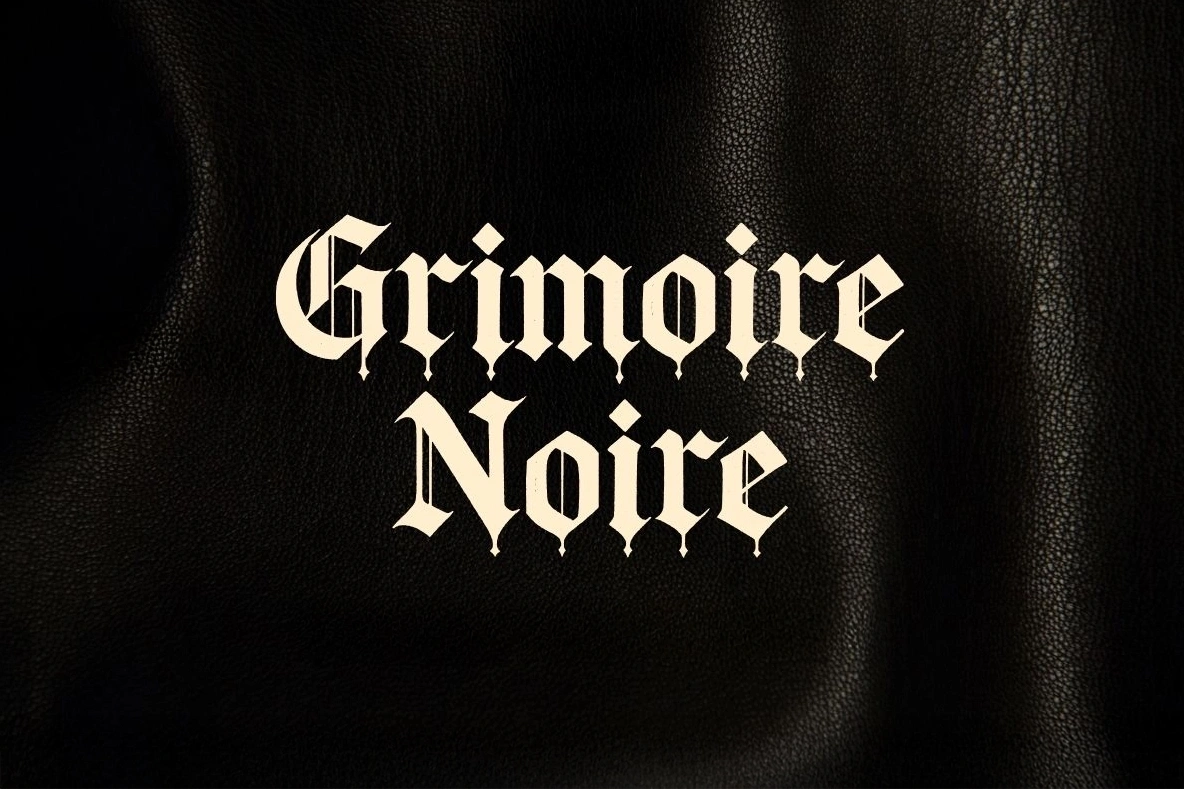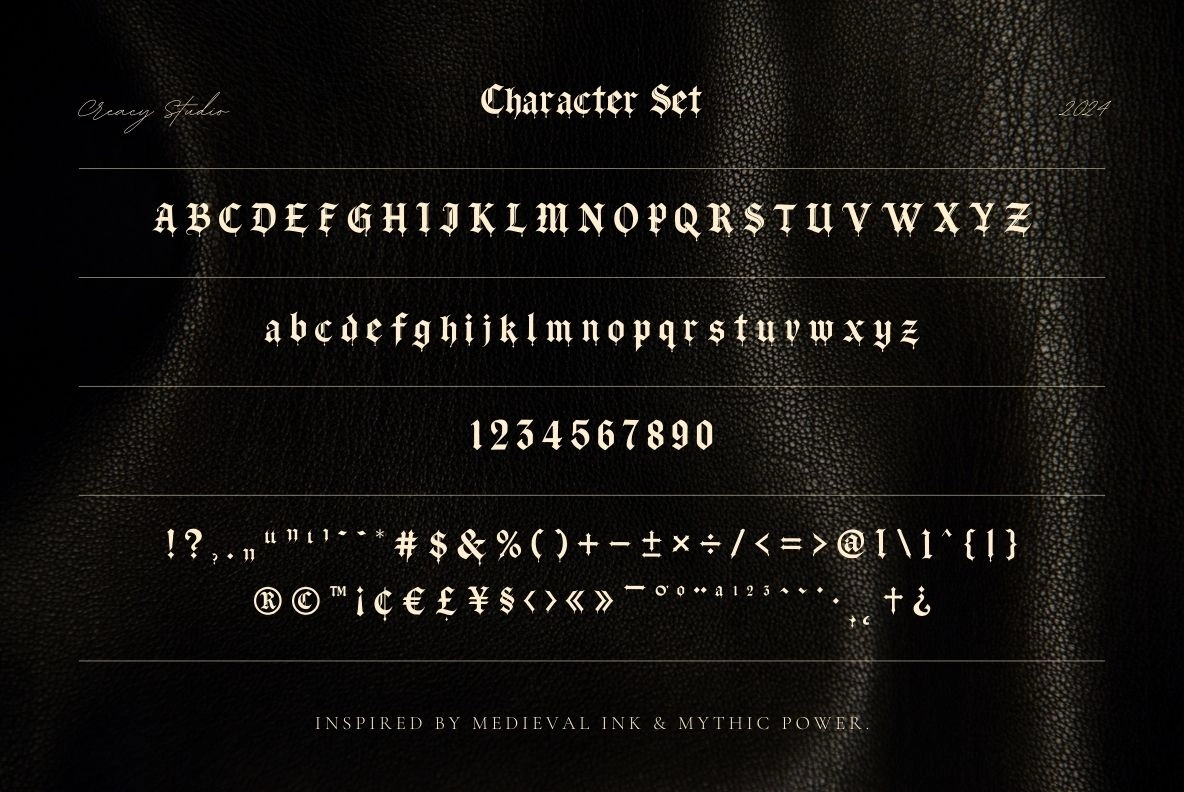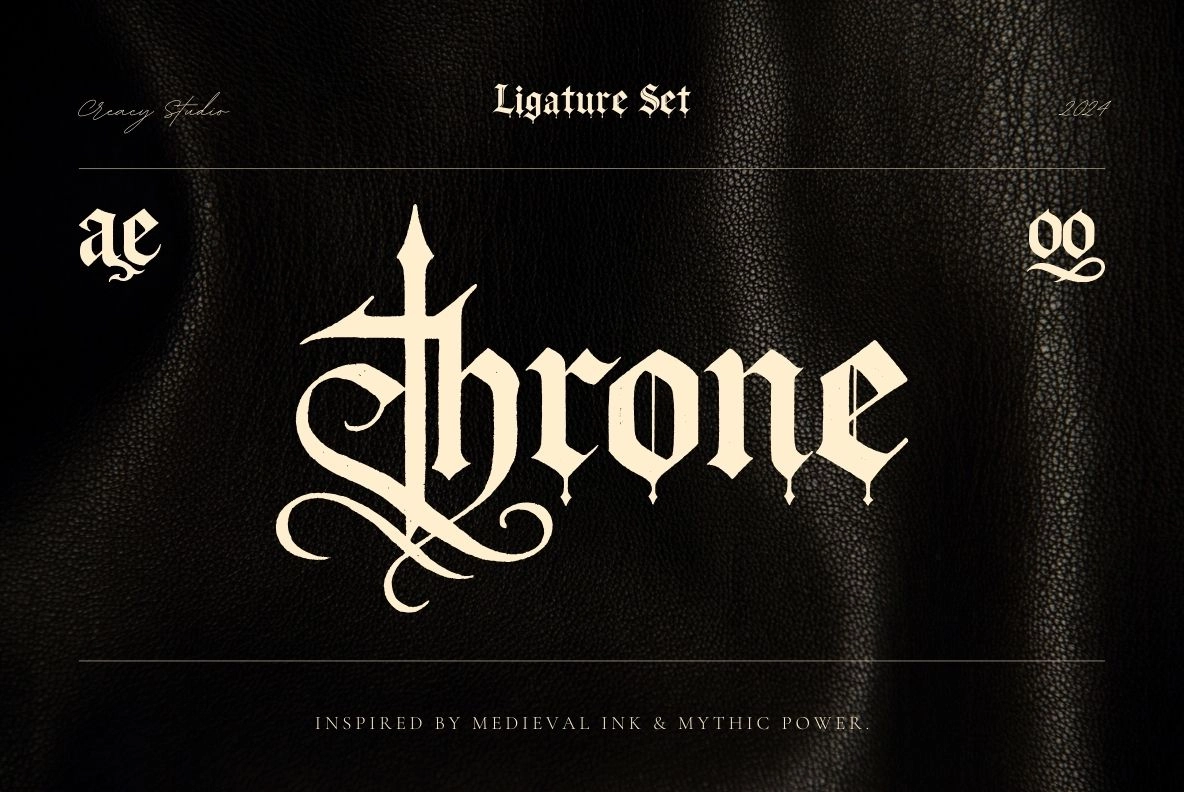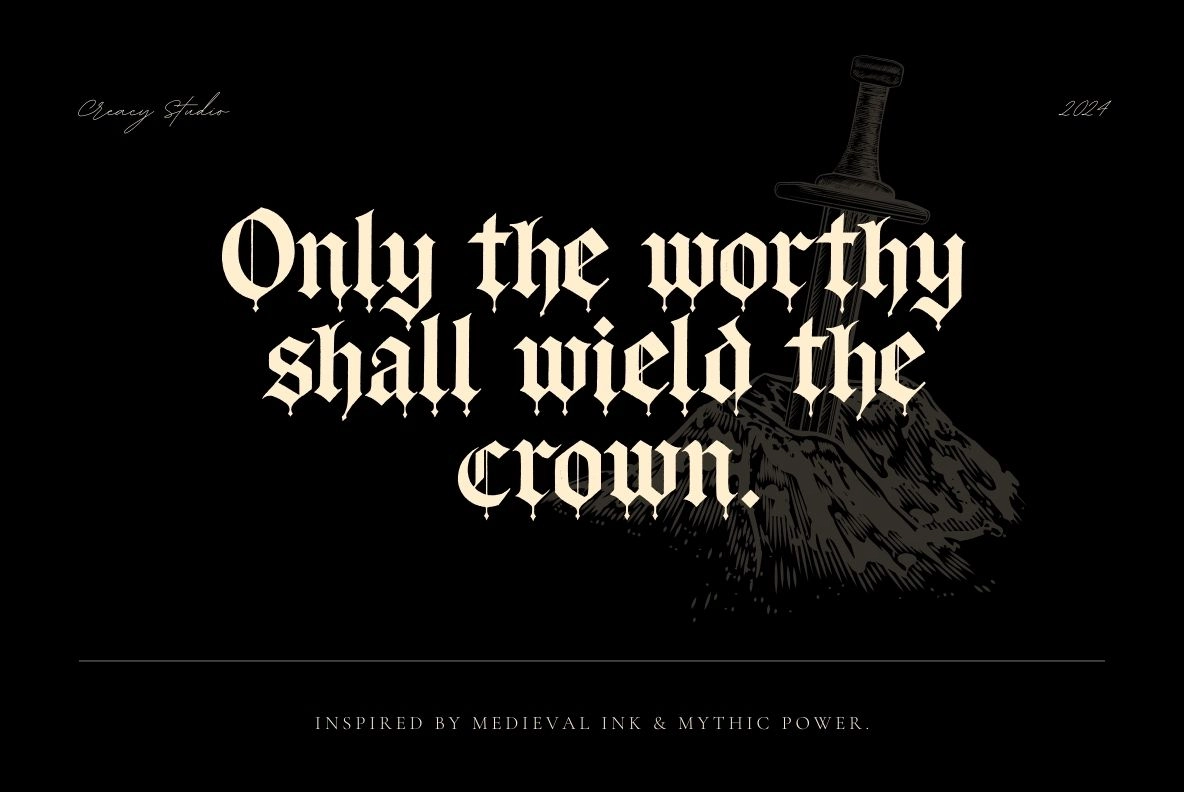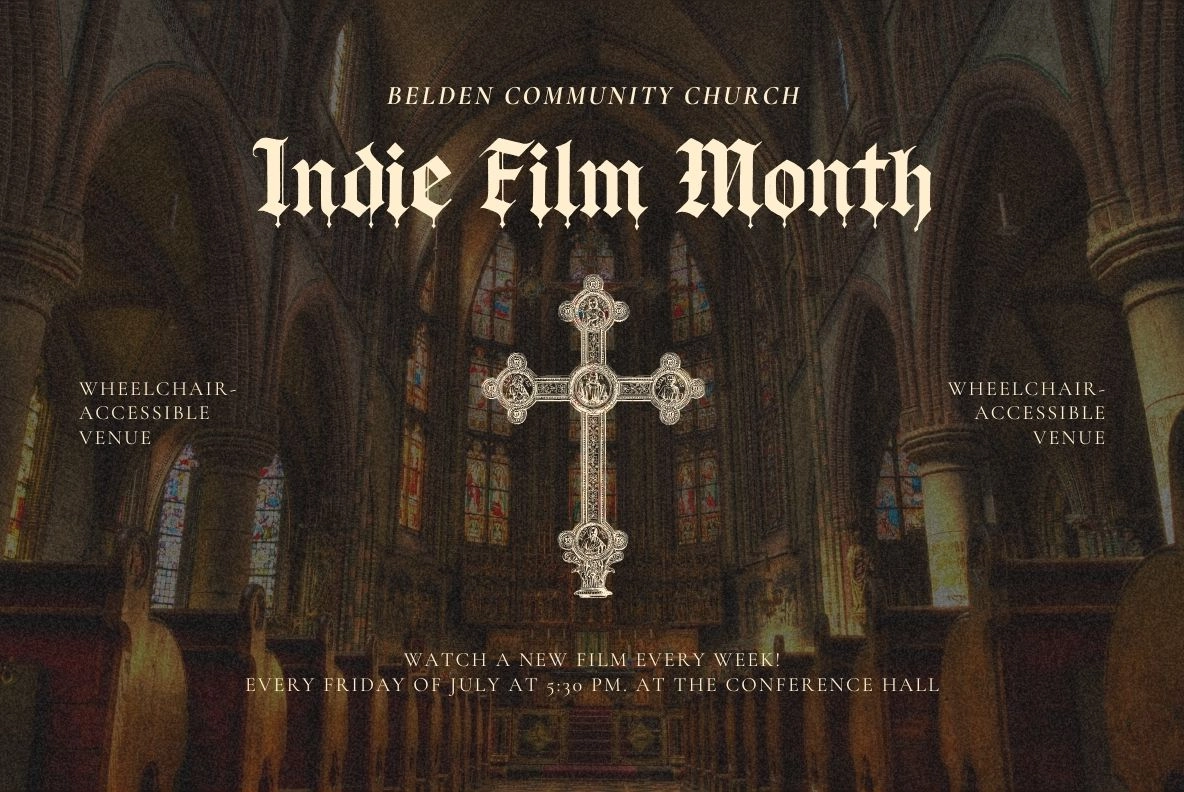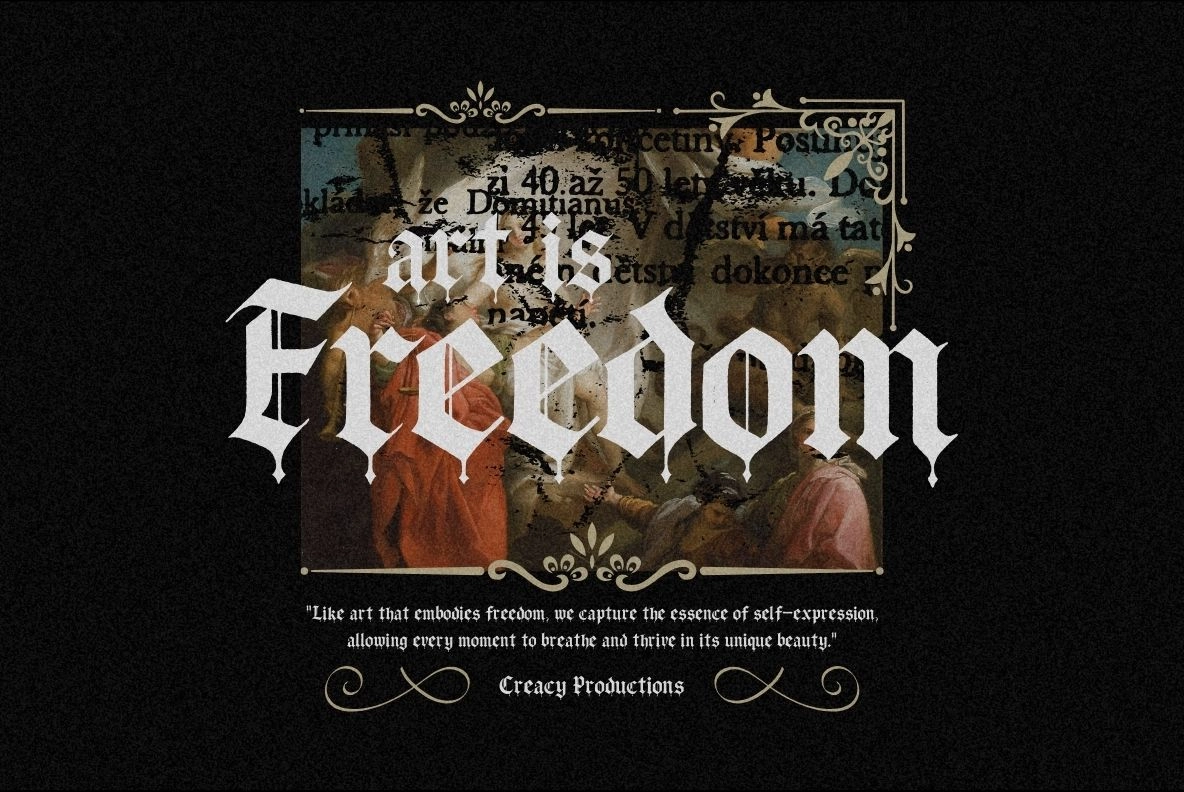
Grimoire Noire
Enter the dark allure of Grimoire Noire, a modern gothic blackletter font that merges medieval mysticism with contemporary edge.
Crafted for designers who crave boldness and drama, every stroke of Grimoire Noire evokes tales of ancient manuscripts, occult symbols, and underground artistry.
With its sharp serifs, intricate curves, and high contrast details, this typeface commands attention — perfect for branding, posters, tattoo designs, or album artwork that seeks to stand out with intensity and elegance.
- Uppercase & lowercase
Let Grimoire Noire awaken your darker creative side — where vintage blackletter meets modern design power.